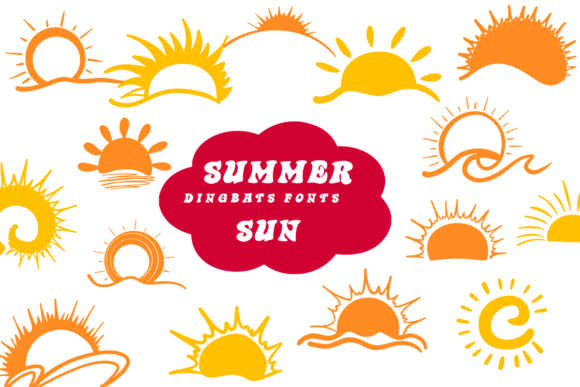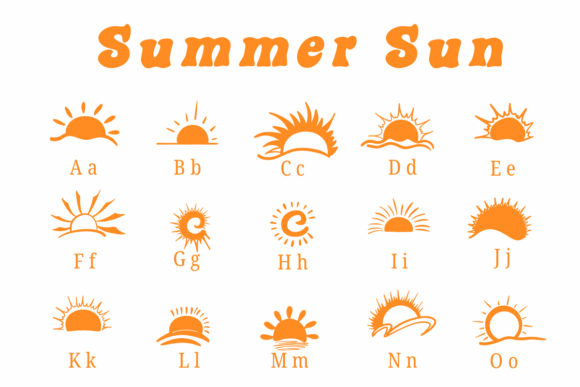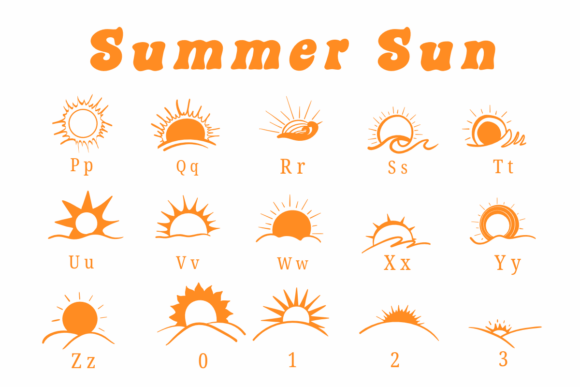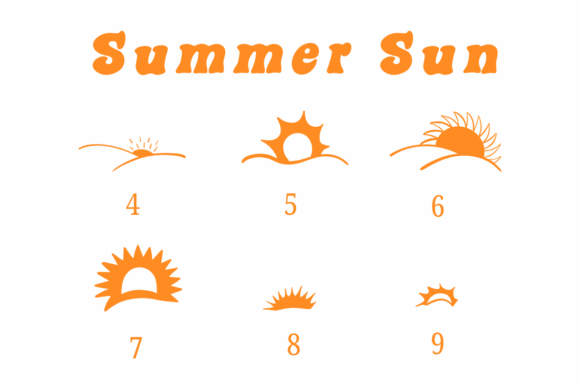
Summer Sun Font
About the Summer Sun Font
We are excited to introduce Summer Sun Font, a must-have typeface for any serious designer. Summer Sun is a dingbats font with a relaxed theme. This font can enhance your creative projects such as wedding invitations, DIY, crafts, decorations, logos, and many other creative ideas.
Summer Sun Font Usage Examples
Summer Sun Font Example